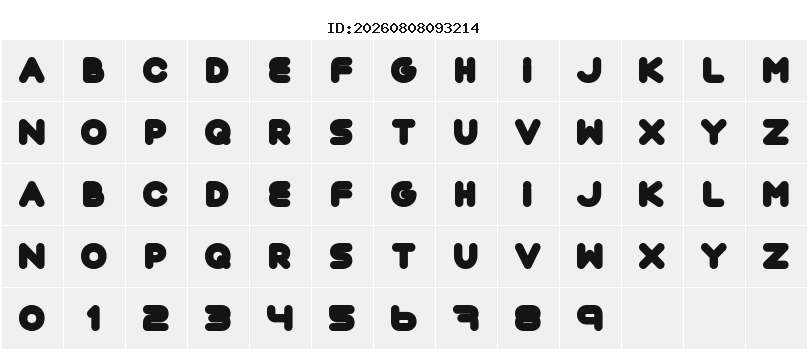
Pouttu Preview
• Font Name: Pouttu
• Full Font Name: Pouttu
About Pouttu.ttf
Pouttu.ttf is a modern, elegant sans-serif font designed for ultimate readability and visual harmony. Perfect for branding, headlines, web design, and print materials.